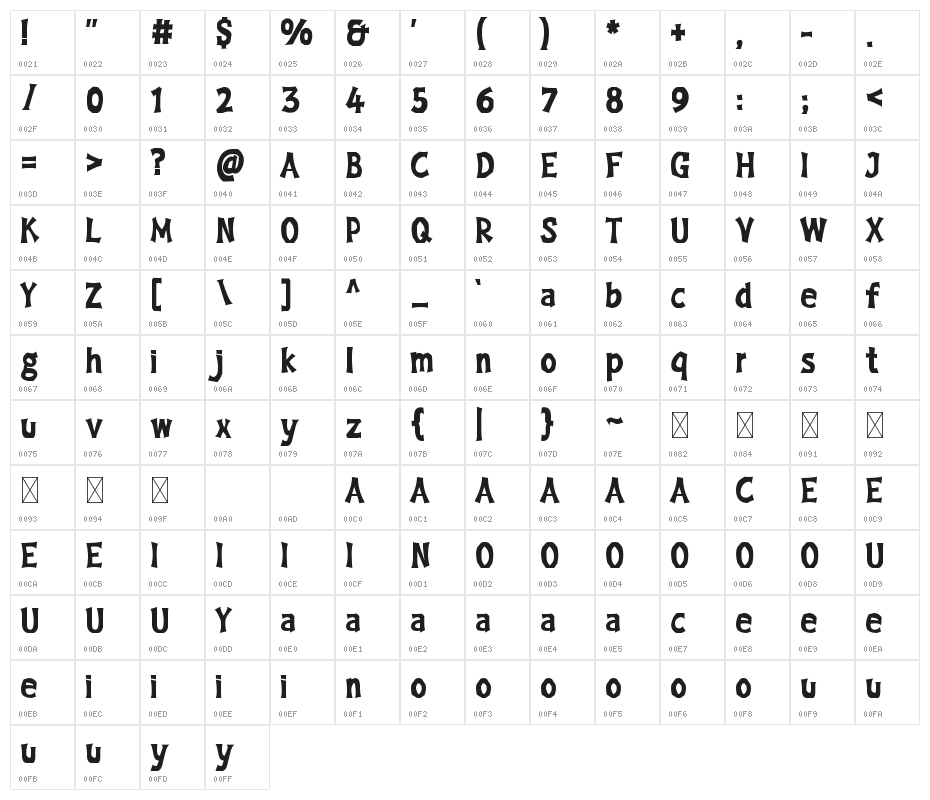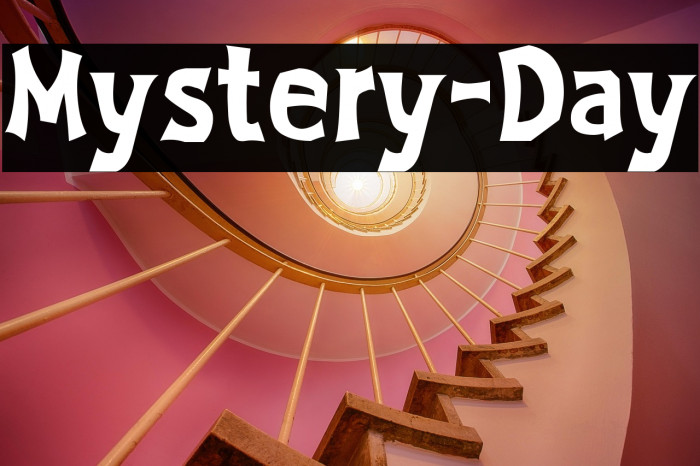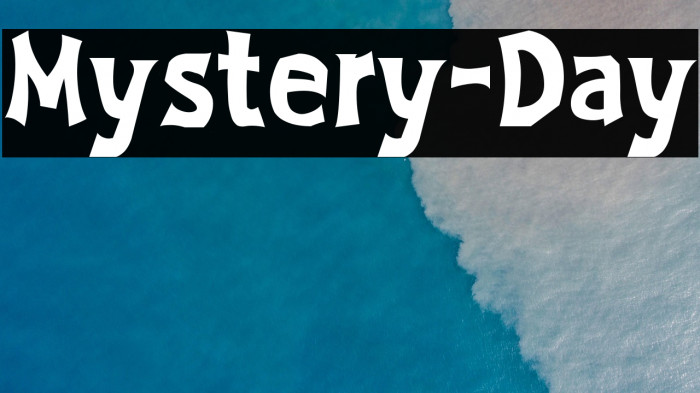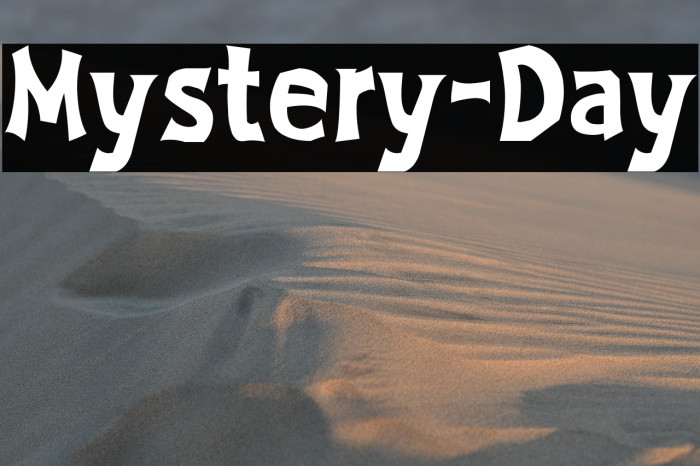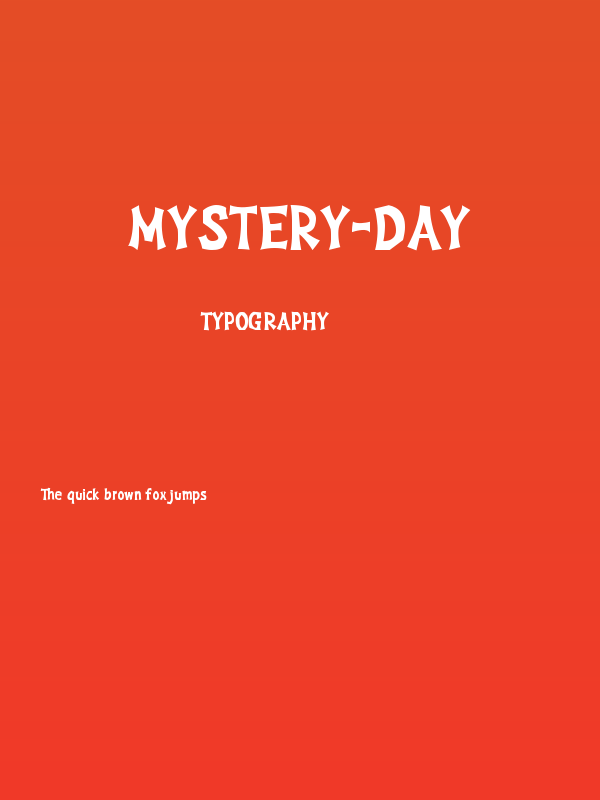
Mystery-Day Font
Mystery-Day Description
This font exhibits a playful and whimsical style, characterized by its irregular and dynamic letterforms. The strokes are bold and slightly uneven, giving it a hand-drawn appearance. The uppercase and lowercase letters maintain a consistent style, with exaggerated curves and angles that add to its quirky charm. The numbers and special characters follow the same design principles, ensuring a cohesive look across all glyphs. This font's unique personality makes it stand out, ideal for projects that require a touch of creativity and fun.
| Overall Style | Whimsical, Playful, Hand-drawn |
| Proposed Projects | Ideal for children's books, playful branding, event posters, and creative invitations. |